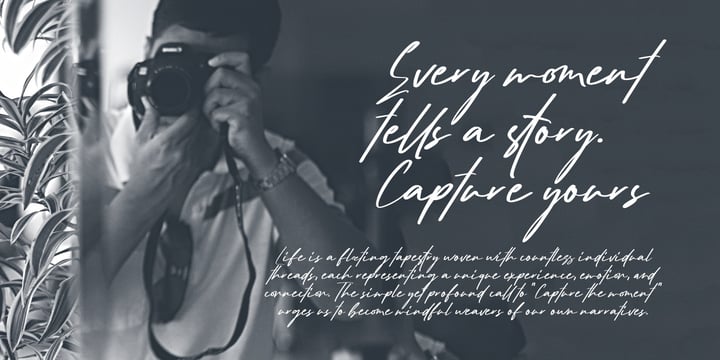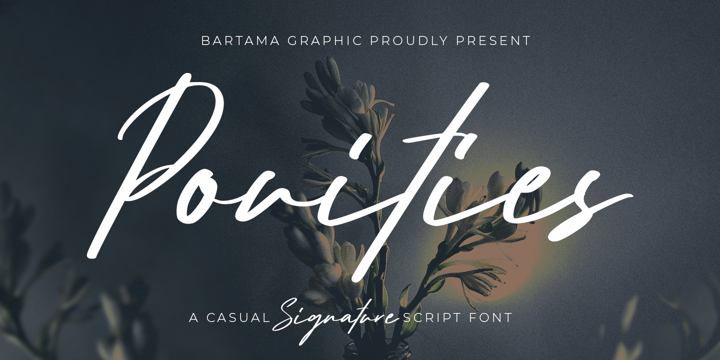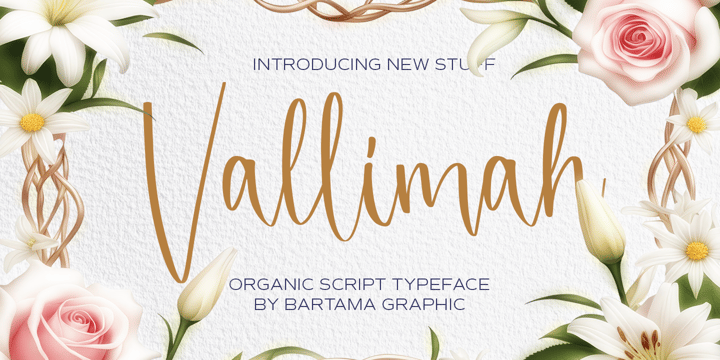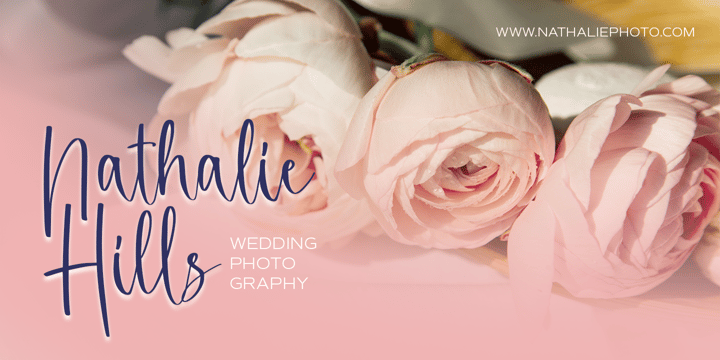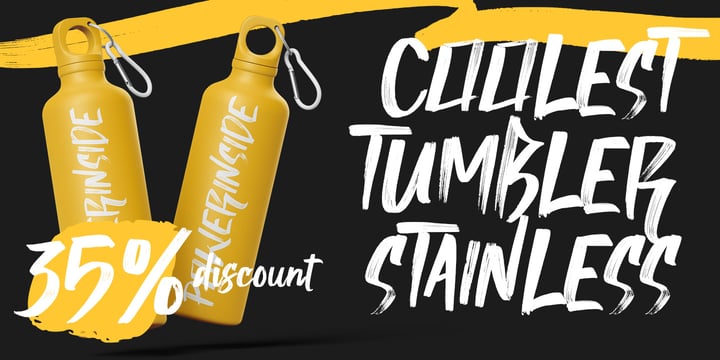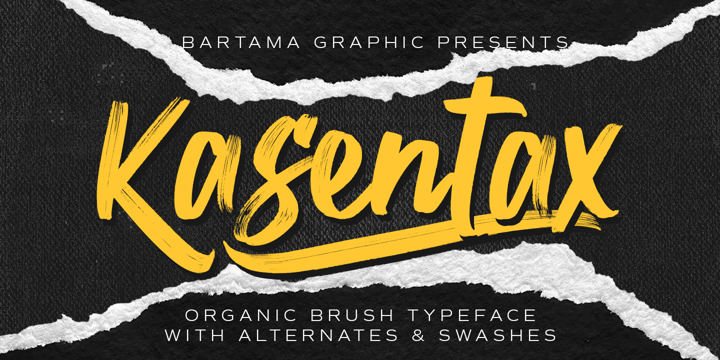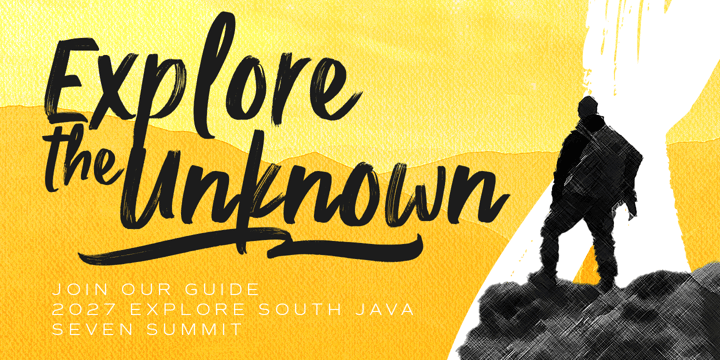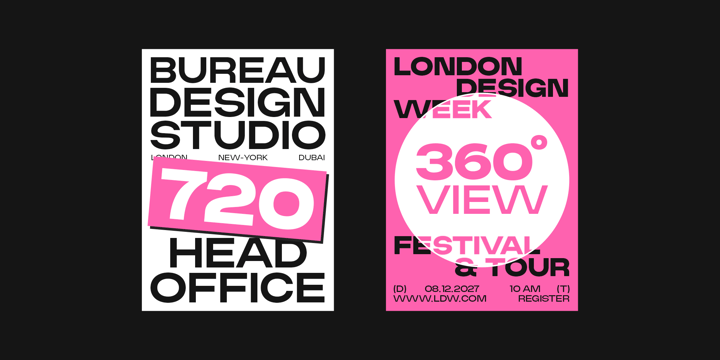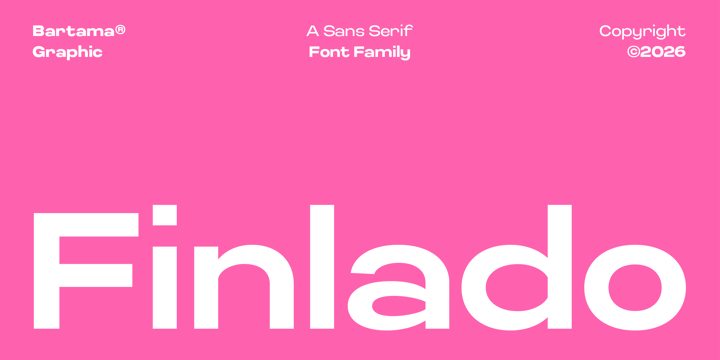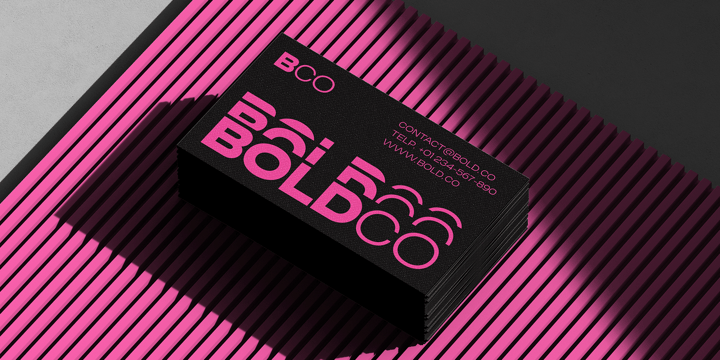
Rizki Akbari Utama
Rizki Akbari Utama has a background as a graphic designer. He became interested in the world of typography design after realizing the crucial role typography plays in all types of design.
Rizki eventually began studying the basics of layout and delving deeper into typography design. He learned from various sources, especially through courses and knowledge shared by senior typographers in Indonesia.
Once he felt he had a solid understanding of typography fundamentals, he decided to start creating script-style fonts. He chose the script style because he found that script fonts are quite popular and widely used across many fields, especially in informal design.
Rizki is committed to continually expanding his knowledge and experience in the world of typography. He also keeps exploring ideas and concepts to make typography not just a tool for enhancing visual design, but also an effective medium of communication for audiences.